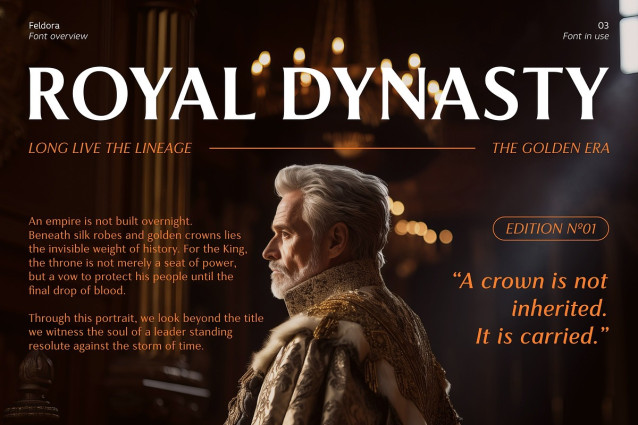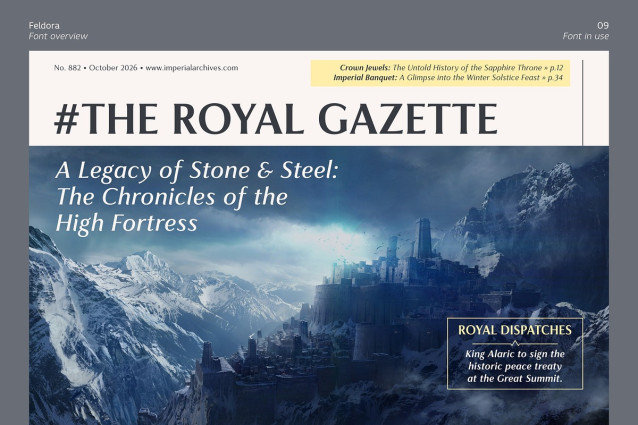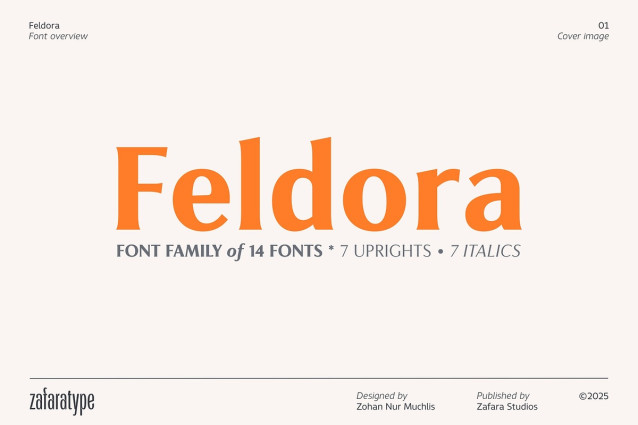
Feldora Font
Feldora Font is a sophisticated and expressive flare serif font family that blends sharp sculptural details with refined elegance. Characterized by its distinctive flared serifs and crisp terminals, Feldora delivers a confident yet organic personality, making it ideal for designs that demand clarity, character, and a premium feel.
With balanced proportions and expressive contrast, Feldora moves seamlessly between classic and contemporary aesthetics. Whether used for bold headlines or refined editorial layouts, it brings authority, elegance, and visual impact to any project.